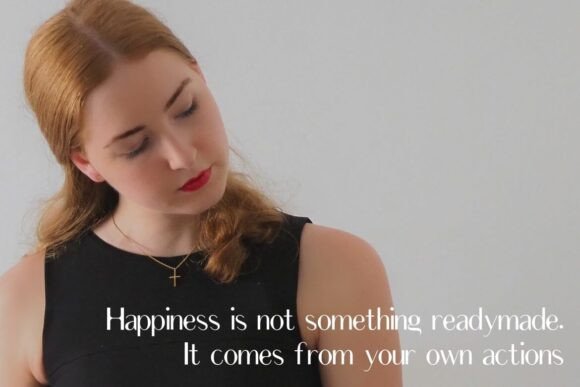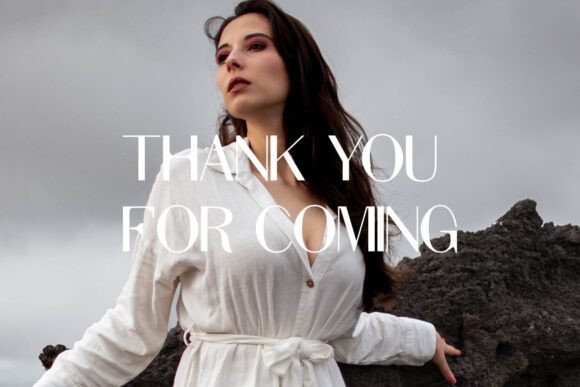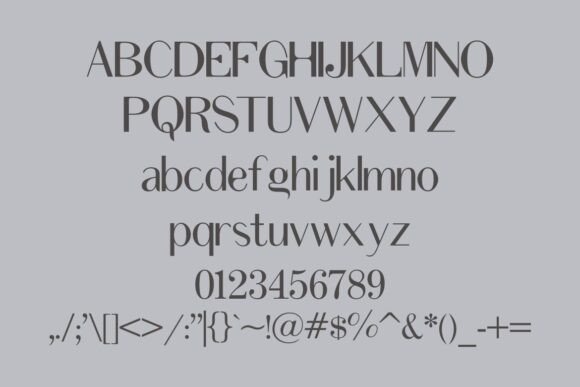
Introducing Delone Font: Elevate Your Designs with Luxury and Sophistication
In the world of typography, fonts play a crucial role in conveying the tone and aesthetic of a brand or creative project. For those seeking a touch of luxury and refinement, Delone Font is an exceptional choice. This chic and contemporary serif font is specifically designed to exude high-end appeal, making it perfect for fashion branding, wedding invitations, editorial layouts, and sophisticated logos.
The Essence of Delone Font
Delone Font boasts a balanced contrast that sets it apart from other serif fonts. Its delicate details and luxurious feel make it an ideal choice for designers and crafters looking to add a touch of class and refinement to their creative projects. Whether you’re working on a fashion magazine, a high-end brand identity, or a wedding invitation, Delone Font is sure to impress.
Key Features of Delone Font
- Balanced Contrast: Delone Font features a perfect balance of thick and thin lines, creating a visually appealing contrast that adds depth and sophistication to any design.
- Delicate Details: The font’s delicate details, such as its subtle serifs and refined letterforms, contribute to its luxurious feel and make it perfect for high-end applications.
- Luxurious Feel: Delone Font is designed to evoke a sense of luxury and refinement, making it an excellent choice for brands and designers seeking to convey a high-end aesthetic.
Use Cases for Delone Font
Delone Font’s versatility makes it suitable for a wide range of creative projects, including:
- Fashion Branding: Delone Font is perfect for fashion brands looking to establish a sophisticated and luxurious identity.
- Wedding Invitations: The font’s elegant and refined design makes it an excellent choice for wedding invitations and other formal events.
- Editorial Layouts: Delone Font is well-suited for editorial layouts, such as fashion magazines and luxury lifestyle publications.
- Sophisticated Logos: The font’s luxurious feel and balanced contrast make it an excellent choice for creating sophisticated logos that convey a sense of high-end quality.
Why Choose Delone Font?
With so many fonts available, why choose Delone Font? Here are a few compelling reasons:
- Unique Aesthetic: Delone Font offers a unique and distinctive aesthetic that sets it apart from other serif fonts.
- High-End Appeal: The font’s luxurious feel and balanced contrast make it perfect for high-end applications and brands seeking to convey a sense of sophistication.
- Versatility: Delone Font is versatile and can be used for a wide range of creative projects, from fashion branding to editorial layouts.
In conclusion, Delone Font is an exceptional choice for designers and crafters seeking to add a touch of luxury and sophistication to their creative projects. With its balanced contrast, delicate details, and luxurious feel, this chic and contemporary serif font is perfect for fashion branding, wedding invitations, editorial layouts, and sophisticated logos. Whether you’re looking to establish a high-end brand identity or create a stunning editorial layout, Delone Font is sure to impress.